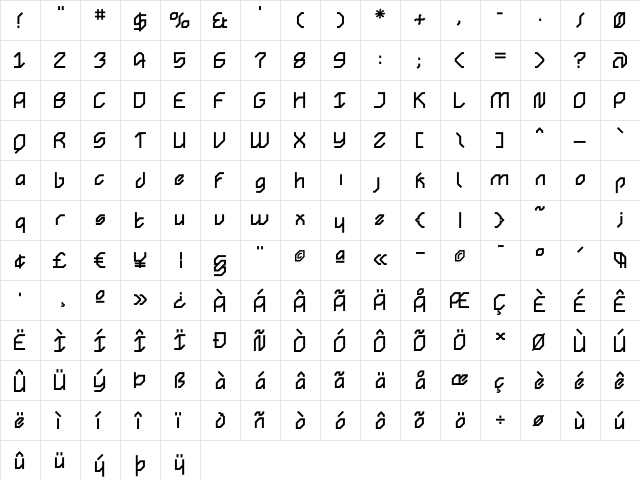
AngolSharp Black Regular
Design Context for AngolSharp Black Typeface
AngolSharp Black is a composed and adaptable typeface that performs quietly and consistently across a wide range of design contexts.